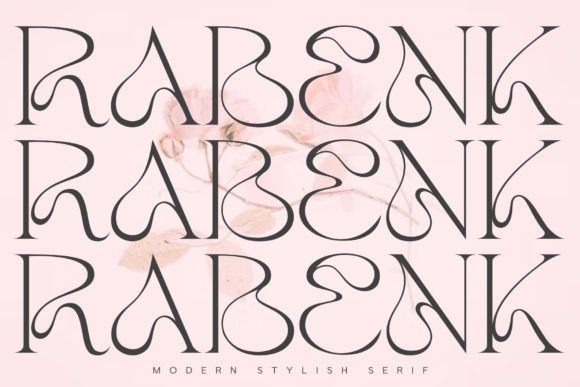
Rabenk Font
Introducing Rabenk, the epitome of sophistication and elegance in the digital realm. This captivating serif font, meticulously crafted by Sealoung, embodies the essence of modern aesthetics, seamlessly blending timeless grace with contemporary flair. With each stroke and curve, Rabenk weaves a tapestry of refined beauty, effortlessly elevating your designs to new heights of visual splendor.
Immerse yourself in the allure of Rabenk, a font that breathes charm and exudes chic. Its delicate serifs dance gracefully across the page, lending an air of sophistication to every word and letterform. Whether you're crafting a professional business website, designing an eye-catching brochure, or composing a heartfelt invitation, Rabenk will add a touch of timeless elegance to your creations.
Step into a world of endless possibilities with Rabenk. Its versatility knows no bounds, adapting effortlessly to a myriad of design styles and purposes. Use it to create stunning headlines that command attention, craft elegant body text that flows with effortless grace, or design captivating logos that leave a lasting impression. The possibilities are as boundless as your imagination.
With Rabenk, you'll discover a font that not only enhances your designs but also speaks to the emotions of your audience. Its enchanting curves and graceful lines evoke a sense of warmth and sophistication, leaving a lasting impression on every reader. Let Rabenk be your secret weapon for crafting designs that resonate with your audience on a profound level.
Rabenk is more than just a font; it's an investment in your creative arsenal. With its ability to transform ordinary text into extraordinary works of art, Rabenk empowers you to create designs that captivate, inspire, and leave a lasting legacy. Embrace the power of Rabenk today and unlock the full potential of your design endeavors. Let your creativity soar as you craft designs that stand out from the crowd and make an unforgettable impact.